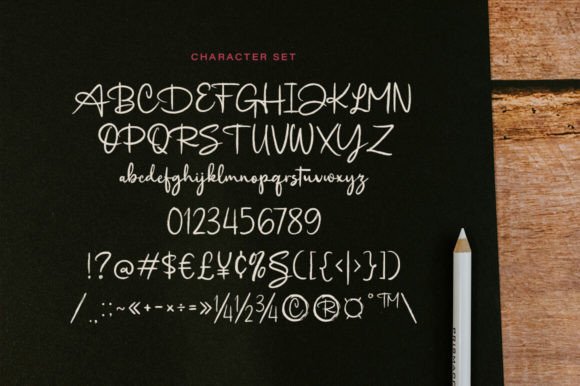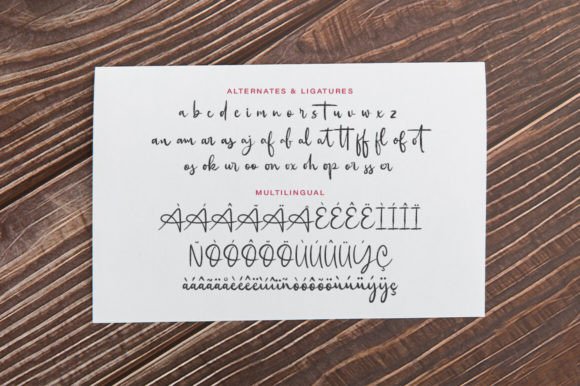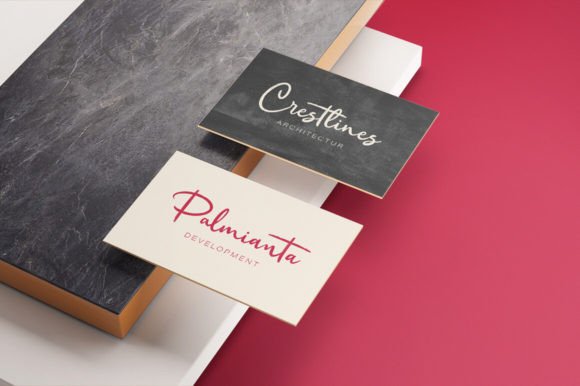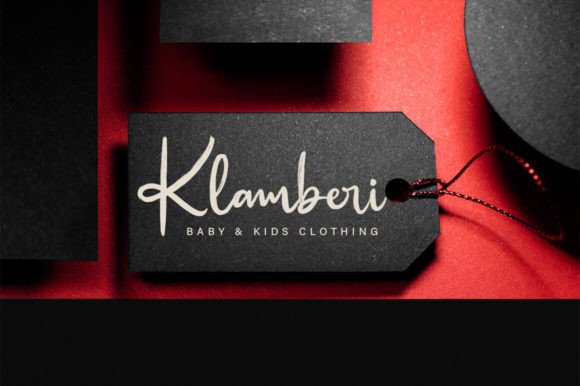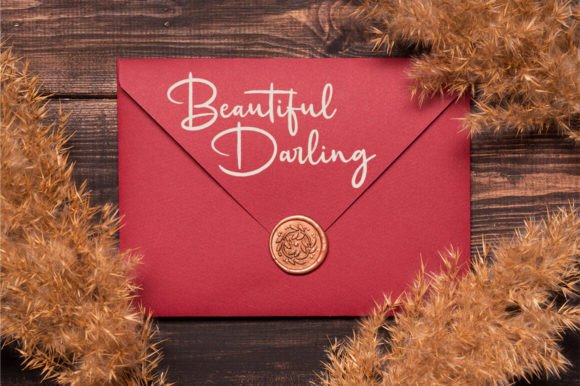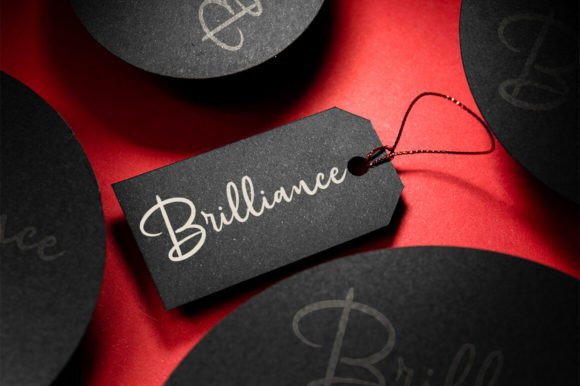
Introduction to Radiant Brush Font
Radiant Brush is a beautifully handcrafted font combined with brush style that’ll make your guests sing and elevate your projects.
Every stroke, and curve was created to entice happiness and elegance It suitable for wedding invitation, greeting cards, T-Shirt, Logo or any design that you create.
Radiant Brush Font offers exceptional quality and versatility, making it a valuable addition to your design toolkit. Whether you’re creating for personal projects or commercial use, Radiant Brush Font delivers professional results.